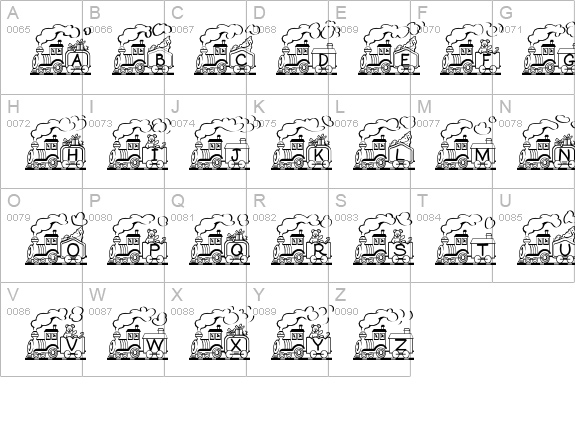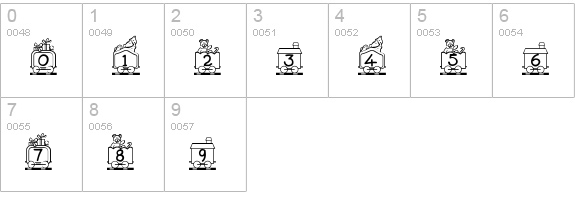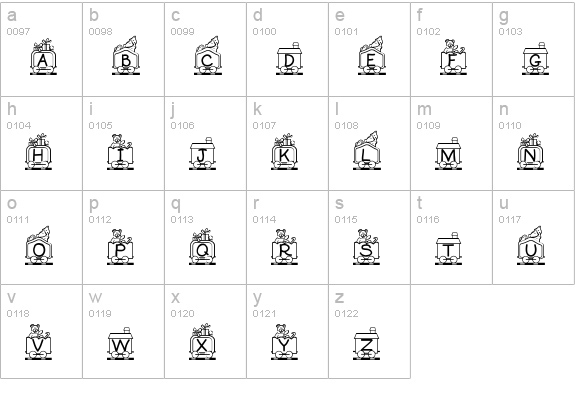
Toy Train Font Details
Introducing Toy Train, the whimsical font that will transport you to a world of childhood wonder and playful imagination. This delightful typeface captures the essence of vintage toy trains, with its charming curves and endearing details. Toy Train is a font that brings joy to any design project. Whether you're creating a birthday invitation, a children's book cover, or a playful logo, this font will add a touch of nostalgia and innocence. Its unique letterforms, inspired by the classic toy train tracks, create a sense of movement and excitement. But what makes this font even more special is that it is free! That's right, Toy Train is freely available to download at FontsMarket.com. We believe that creativity should know no bounds, and by offering this font for free, we hope to inspire designers and artists to explore new possibilities without any constraints. With its wide range of characters, including uppercase and lowercase letters, numbers, and punctuation, Toy Train offers endless possibilities for customization. Whether you prefer a bold and eye-catching design or a subtle and delicate touch, this font can adapt to your creative vision. So hop aboard the Toy Train and let your imagination run wild. Download this free font at FontsMarket.com and embark on a journey filled with joy, nostalgia, and limitless creativity.